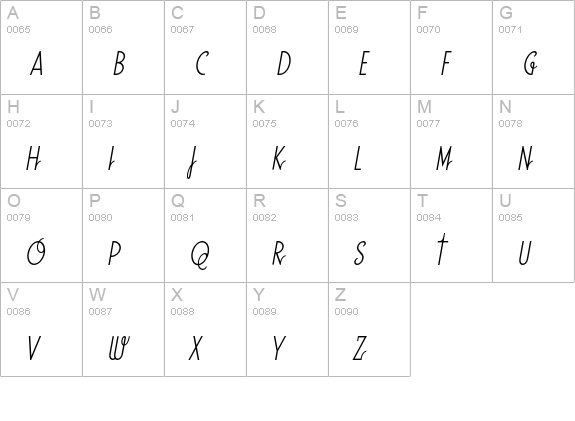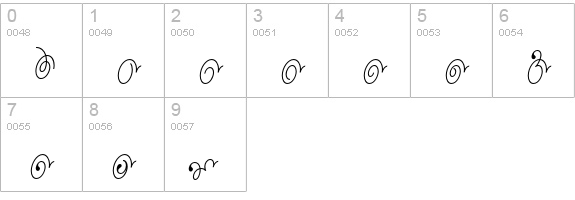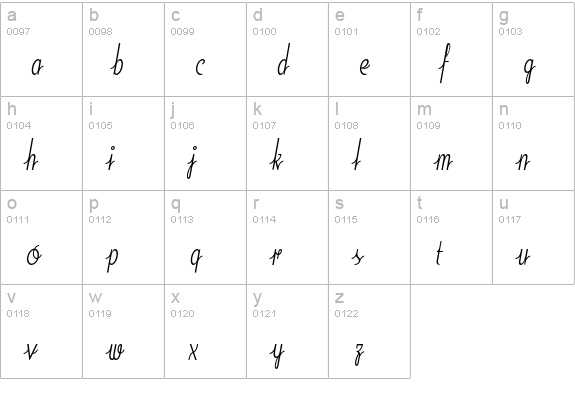
SodaScriptLightExtras font is a delightful and playful typeface that adds a touch of whimsy to any design project. With its unique and intricate letterforms, this font exudes a sense of fun and creativity. Perfect for adding a touch of personality to invitations, greeting cards, logos, and more, SodaScriptLightExtras font is sure to capture attention and leave a lasting impression. Its light and airy feel brings a sense of warmth and charm to any text, making it perfect for both digital and print applications. One of the best features of this font is that it is free! Yes, you heard it right. SodaScriptLightExtras font is freely available to download at FontsMarket.com. This means that you can easily access and use this font without any cost. Whether you are a professional designer or just looking to spice up your personal projects, this font is an excellent choice. So why wait? Download SodaScriptLightExtras font today and let your creativity soar. With its playful nature and unique design, this font is sure to add a touch of magic to your designs. Don't miss out on the opportunity to enhance your projects with this fantastic font, available for free at FontsMarket.com.